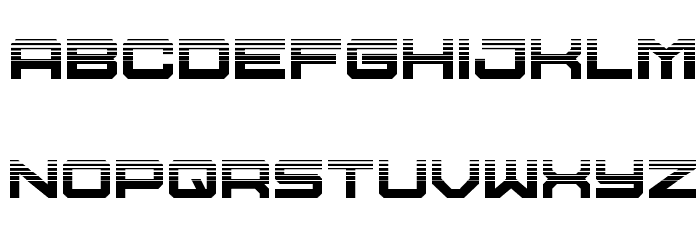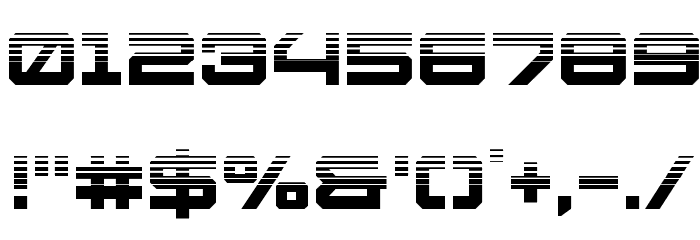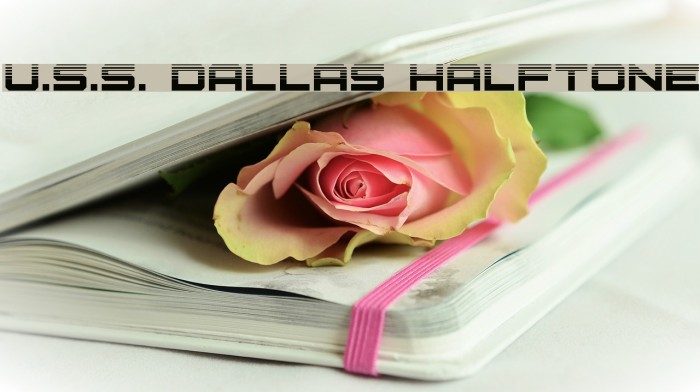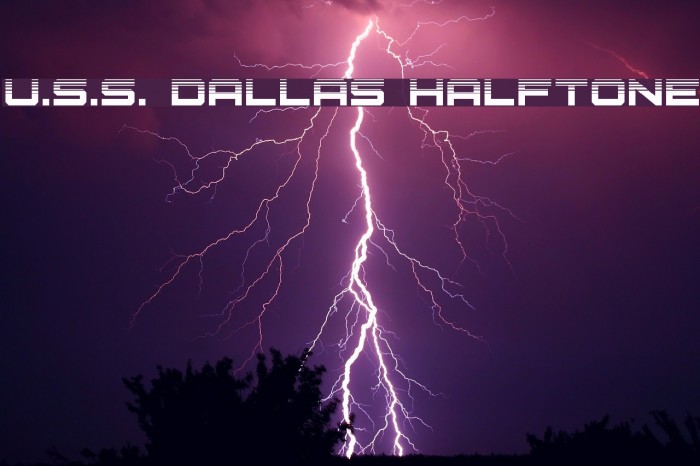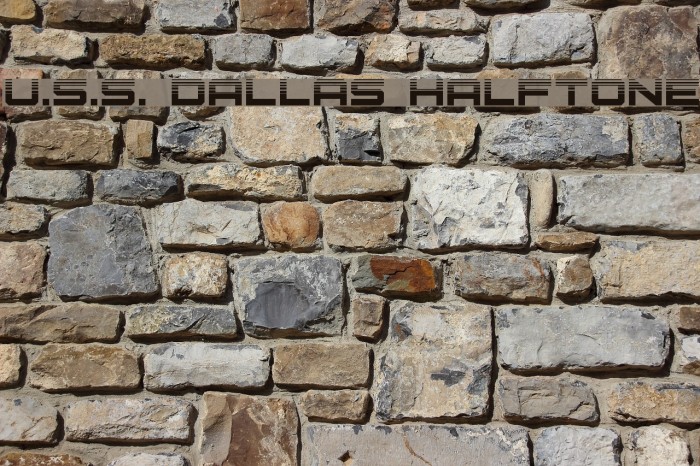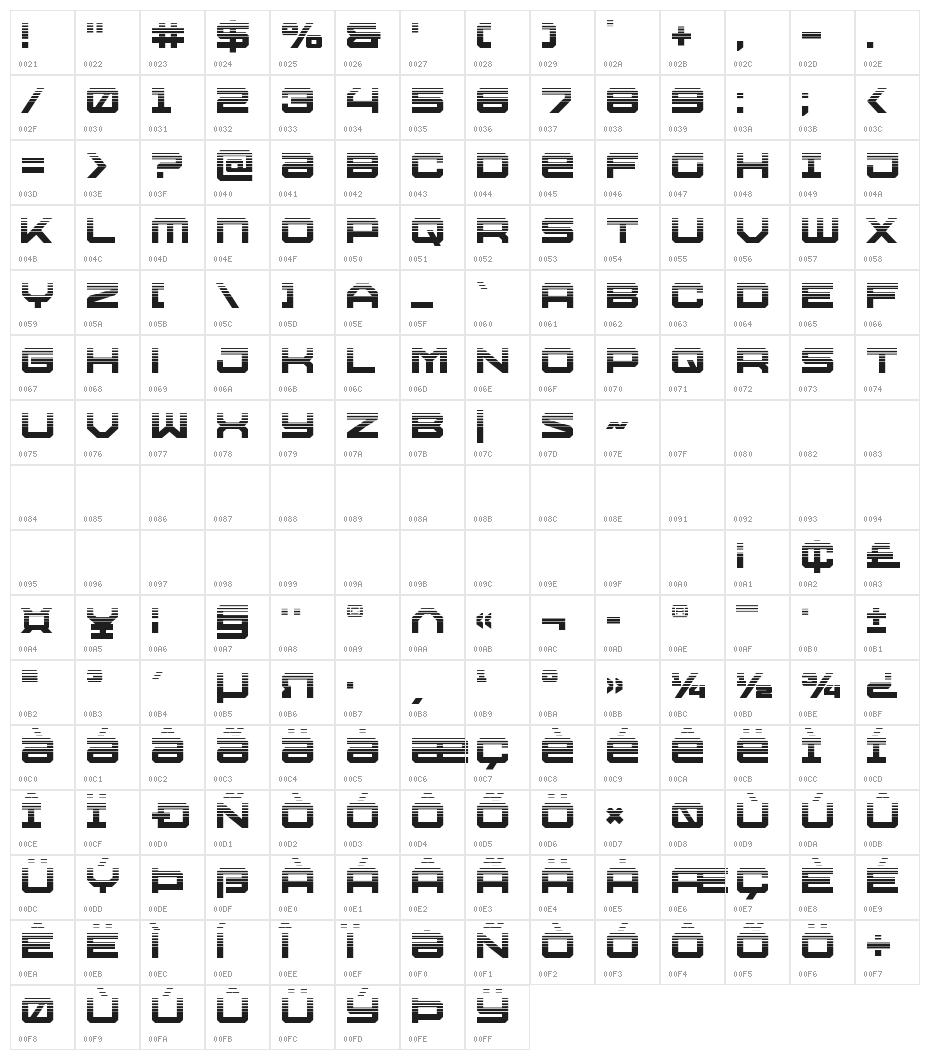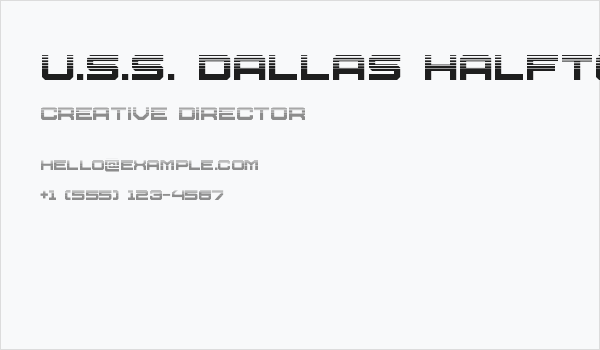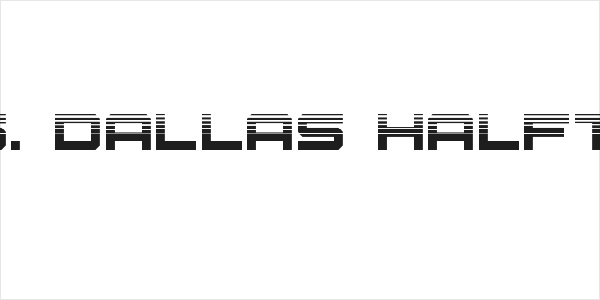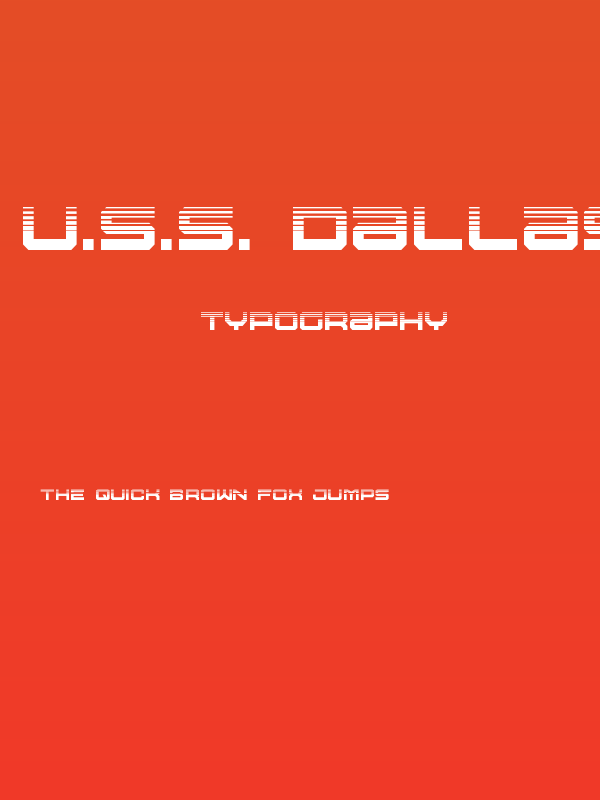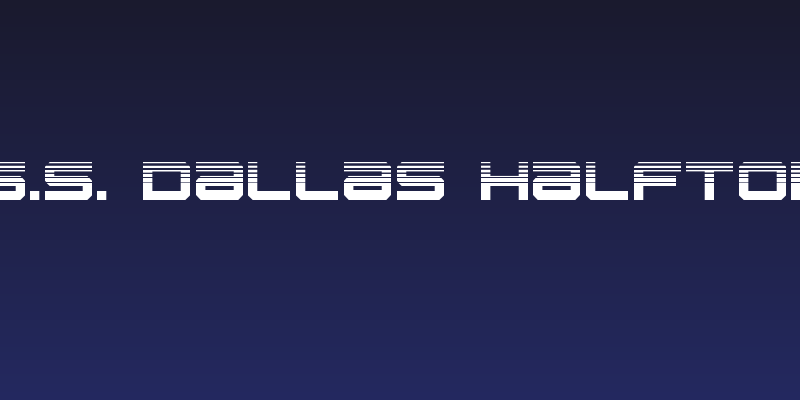
U.S.S. Dallas Halftone Font
This font features a bold, futuristic design with a distinctive halftone effect that creates a sense of depth and dimension. The characters are constructed with horizontal lines that give them a digital, high-tech appearance. The uppercase and lowercase letters maintain a consistent style, with sharp angles and a geometric structure. The numbers and special characters are equally stylized, making them suitable for modern and tech-oriented designs. The font's unique aesthetic is eye-catching and ideal for projects that require a contemporary and innovative look.
A bold, futuristic font with a halftone effect and geometric design.
- Proposed Projects: Ideal for technology branding, sci-fi posters, video game titles, and digital media.